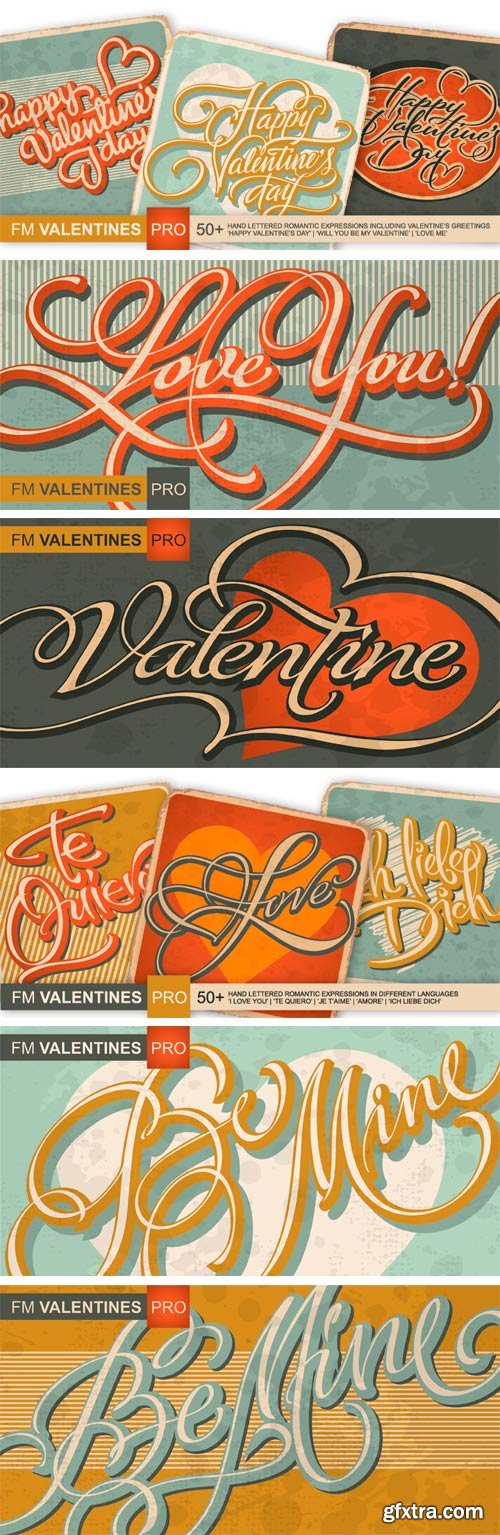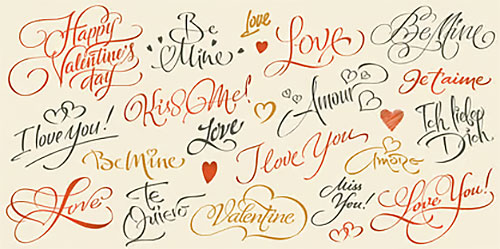
- FM Valentines Pro consists of 50+ hand-lettered love expressions and sentiments for various romantic purposes: from St.Valentine’s greeting cards to email/ letter signatures, to engagement, wedding and anniversary accessories and gifts. Most of the expressions are in English, with some additions in other languages, such as French, Spanish, Italian, German (for example ‘Te quiero’, ‘Amore’, 'Je t'aime', ‘Ich liebe dich’, etc.). All the words and phrases are original and handwritten - a high quality calligraphy for your projects. In addition there are 10 hand-drawn heart icons in the digits' glyphs.